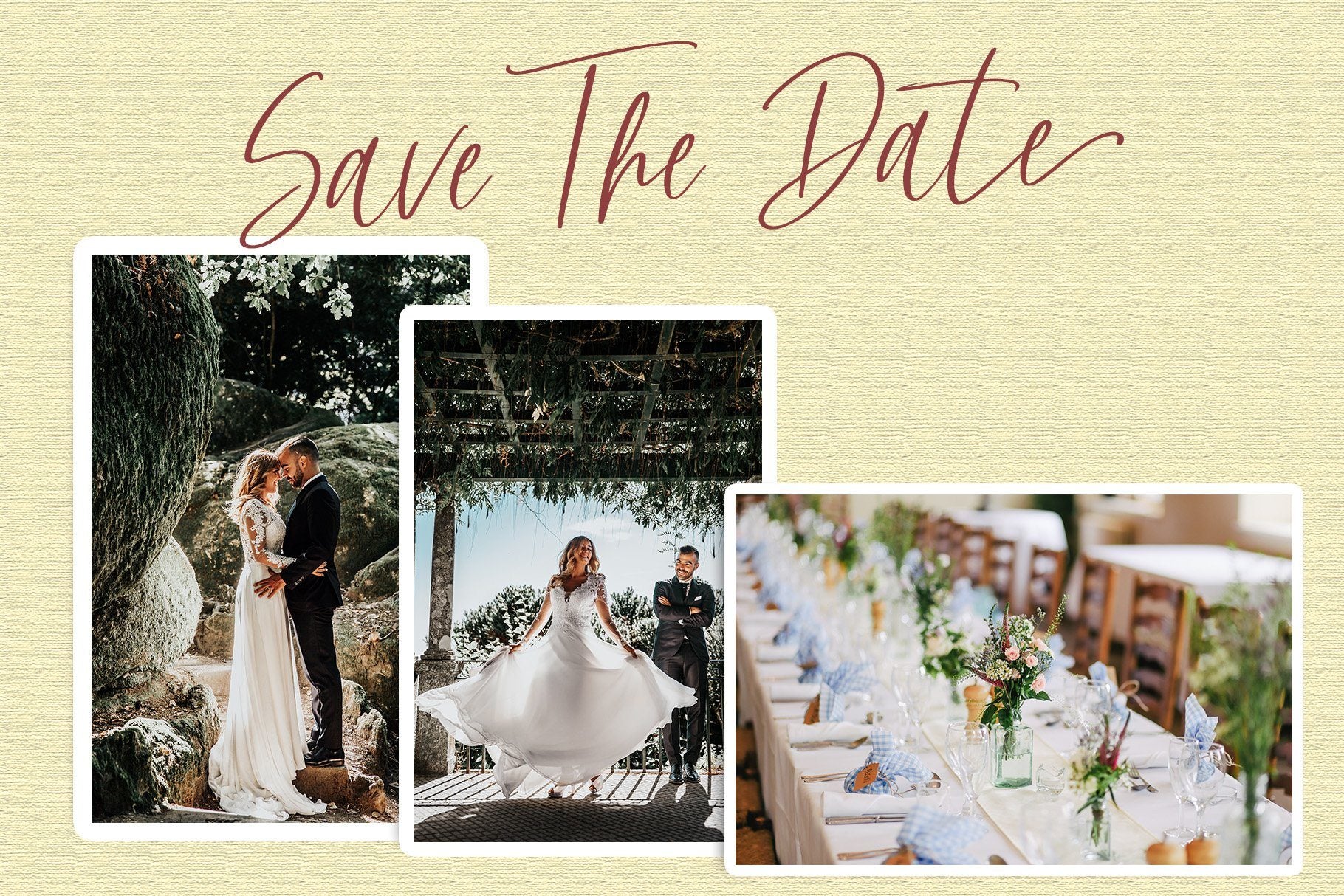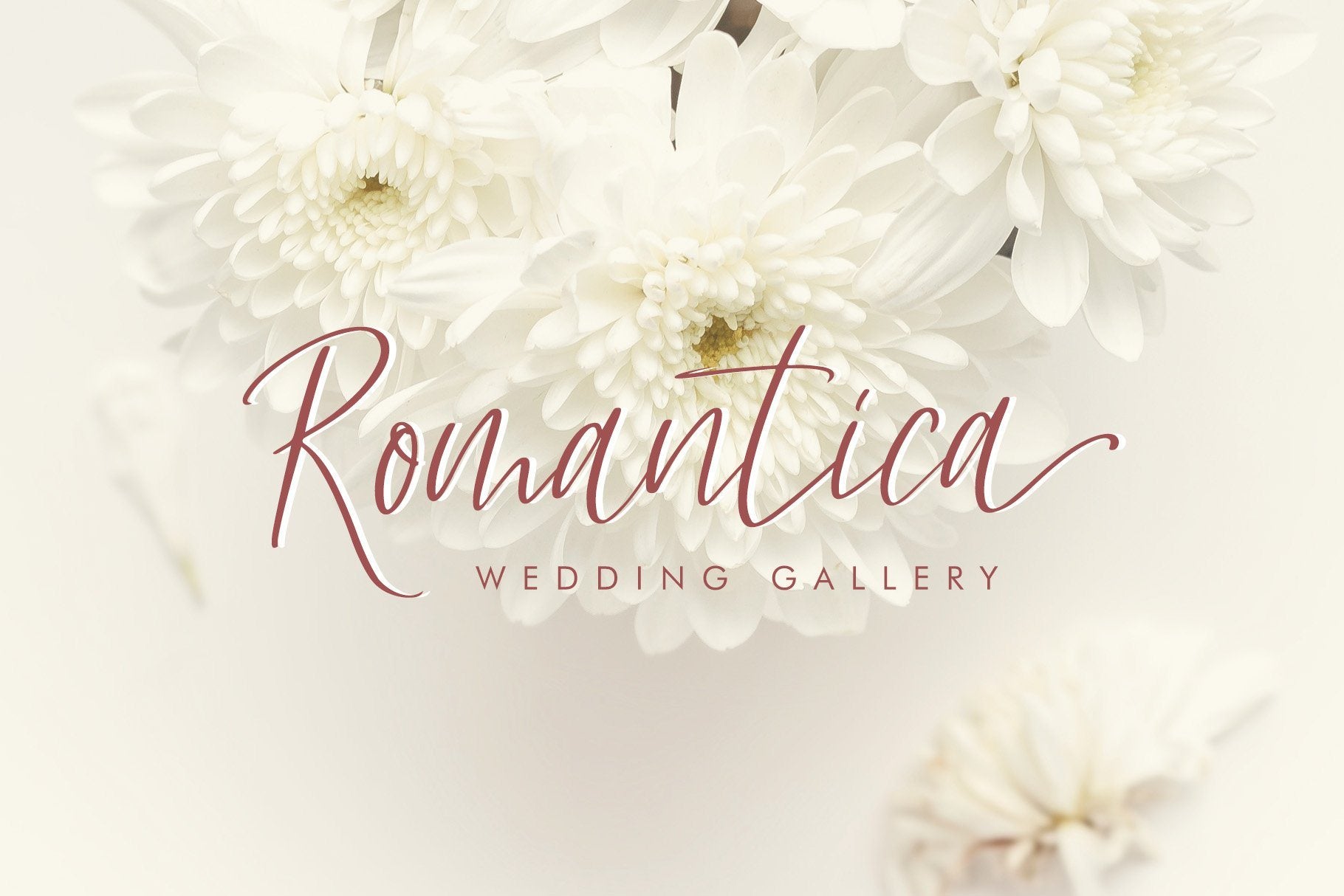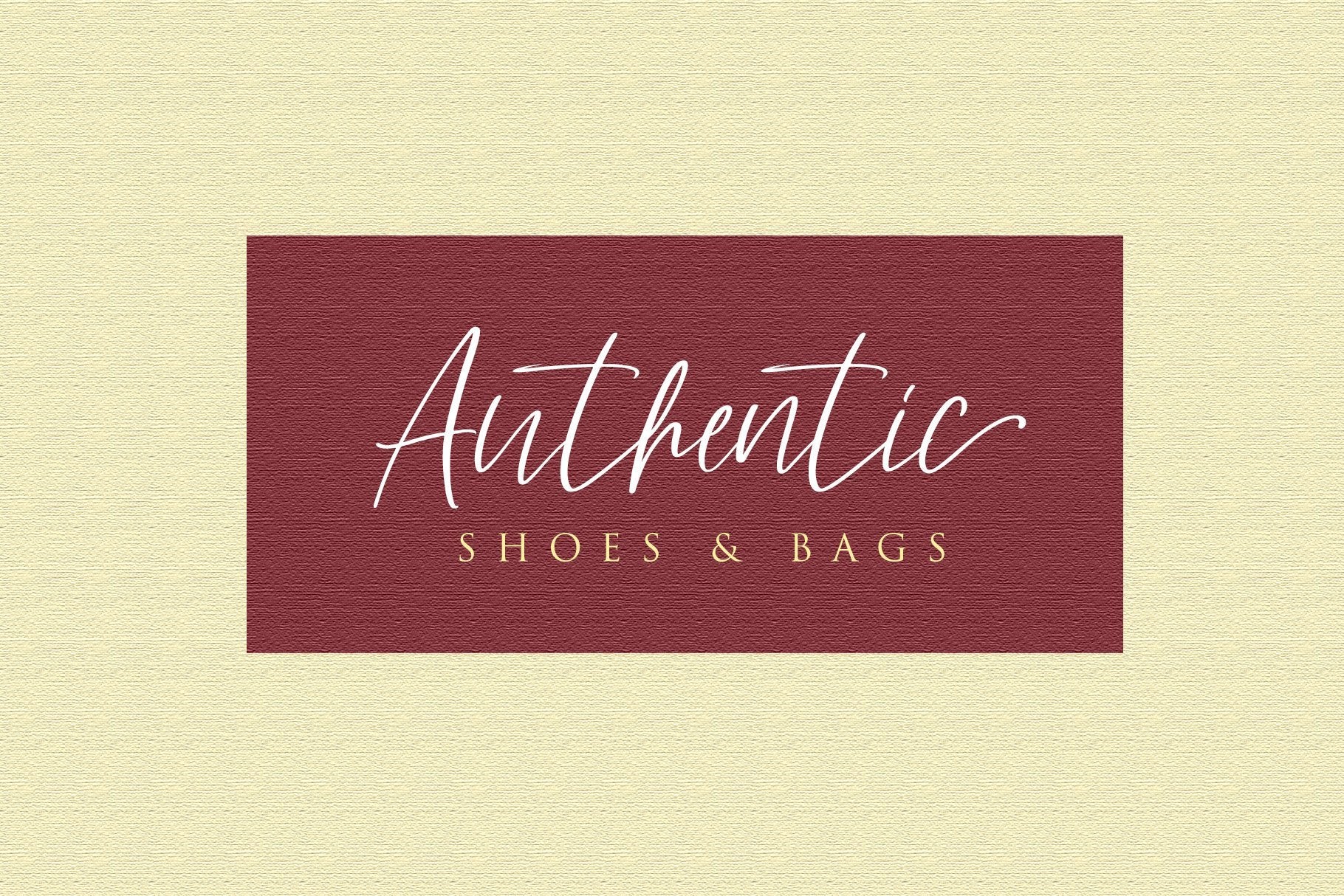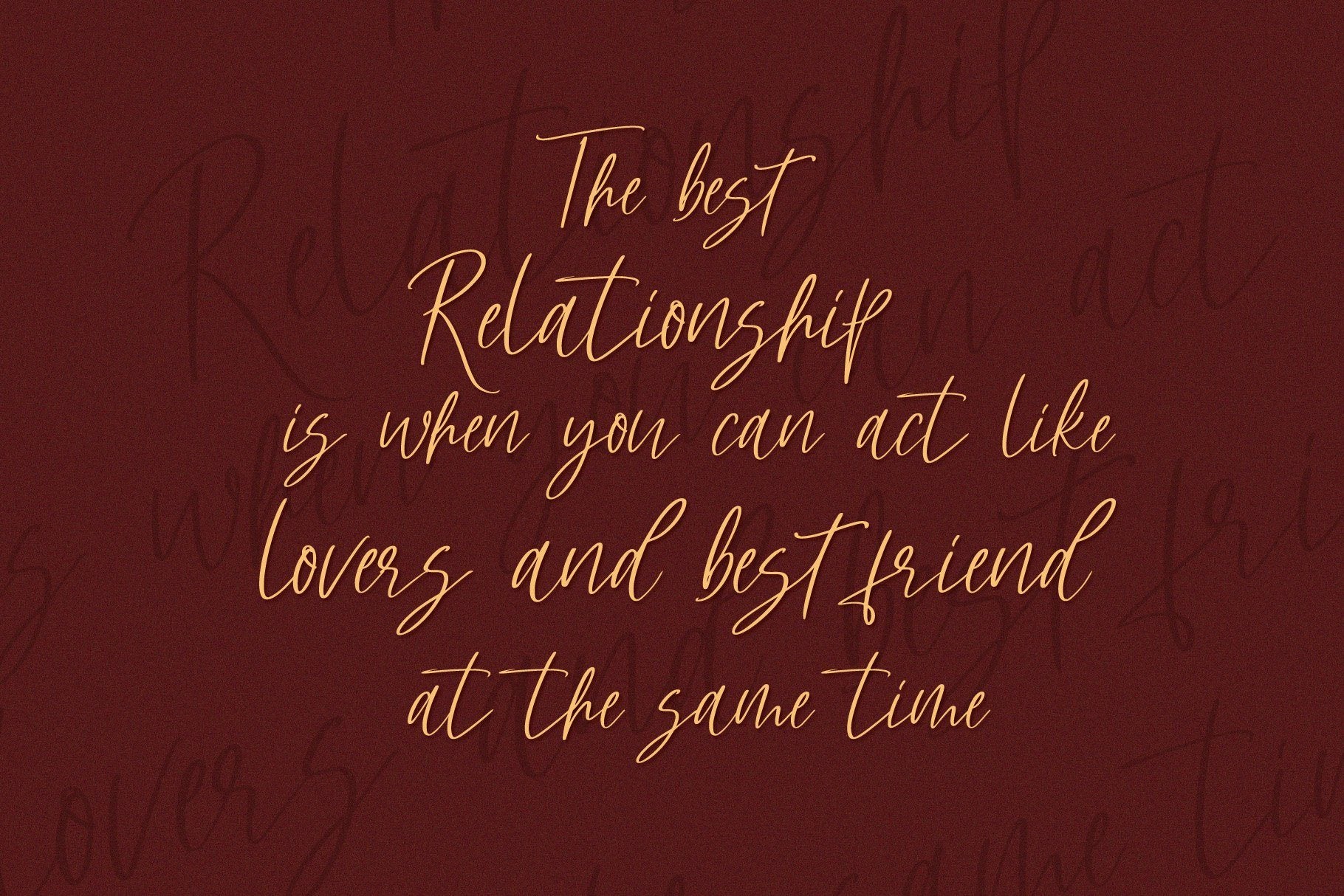
About Hellena – Handwritten Script Font
Introducing, Hellena Handwritten Script Font It’s an organic, casual, smooth, and gorgeous dancing font made carefully from the real handwritten. Great choice for your special moment or special project, pair perfectly with another font style. It’s also easy to use, with extra ligatures, alternates, and underline swashes to make your project more catchy. Attached them on your wedding invitations, gifts, brand, logos, tagging, and even to promote your personal business. Highlights – Including standard character set, with numerals, punctuation and symbols – Multilingual Support – Including ligatures, alternates, and underline swashes Files – Hellena OTF, TTF, WOFF – Hellena Swash OTF,TTF, WOFF Thanks for every support, please kindly message us for any questions or issues about our product. Hope you like it and stay creative!